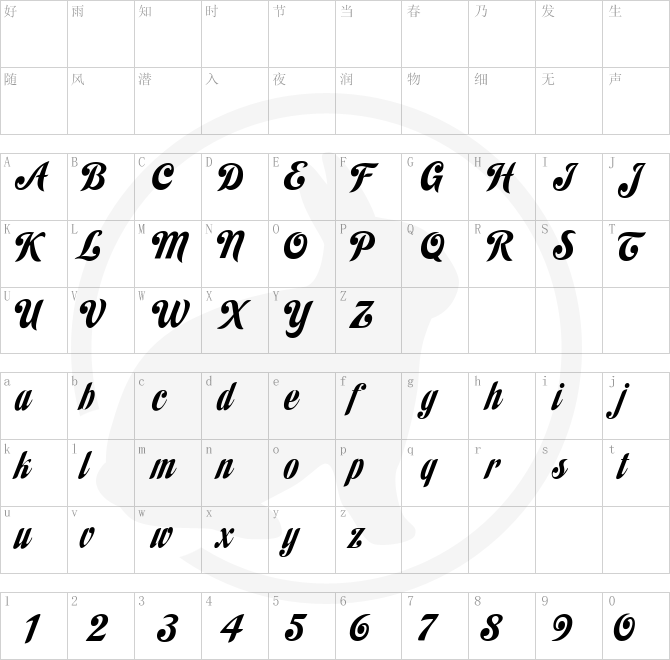
- Font Name:HabanoST
HabanoST.ttf is a very beautiful artistic font, HabanoST.ttf is widely used in the design and printing of various books and pictures,HabanoST.ttf has a strong visual impact,HabanoST.ttf is a commonly used font in newspapers, magazines and books, and is used in posters, e-commerce Poster design, store design, logo design, font design and other fields.HabanoST.